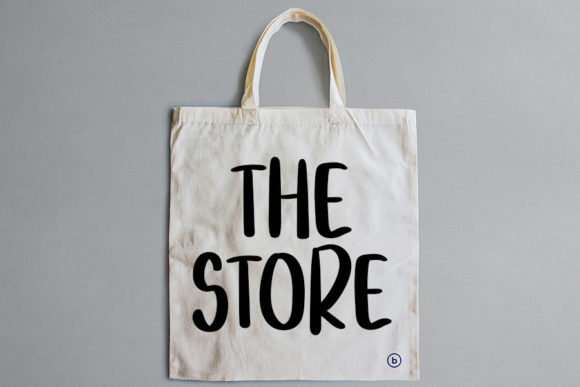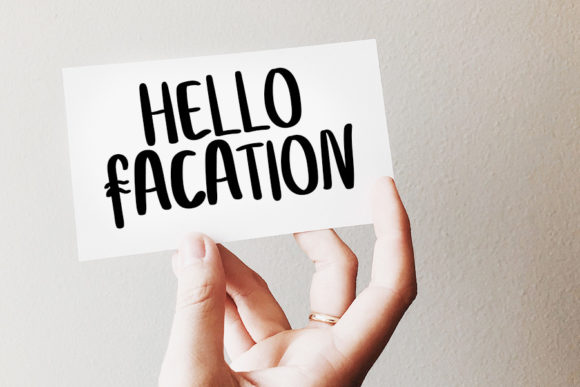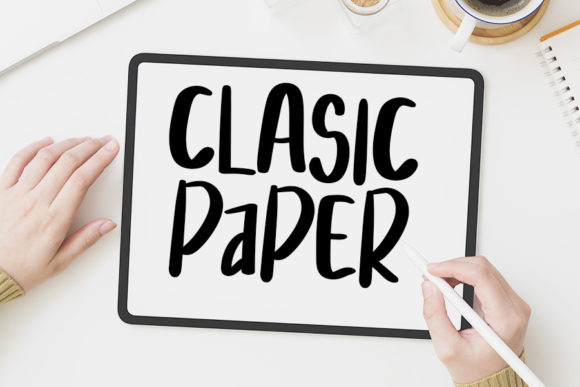
Introducing Blue Font: Elevate Your Designs with a Simple yet Stunning Typeface
Are you tired of using the same old fonts in your designs? Look no further than Blue Font, a game-changing display font that’s about to take your creations to the next level. With its clean and simple style, Blue Font is the perfect addition to any designer’s toolkit. In this article, we’ll dive into the world of Blue Font, exploring its features, benefits, and endless possibilities.
What is Blue Font?
Blue Font is a modern, all-round display font that’s designed to brighten up your designs. Its flexibility and neat style make it an ideal choice for a wide range of projects, from branding and advertising to packaging and digital media. Whether you’re a seasoned designer or a crafty DIY enthusiast, Blue Font is sure to become your new go-to typeface.
Key Features of Blue Font
- Clean and Simple Style: Blue Font boasts a clean and simple design that’s easy on the eyes. Its uncluttered lines and minimalist aesthetic make it perfect for creating modern, sophisticated designs.
- Flexibility: Blue Font is incredibly versatile, making it suitable for a wide range of applications. Use it for headlines, titles, and captions, or experiment with different sizes and styles to create unique effects.
- Neat and Organized: Blue Font’s neat style ensures that your designs always look polished and professional. Say goodbye to cluttered, messy typography and hello to crisp, clean lines.
Benefits of Using Blue Font
So, why should you choose Blue Font for your next design project? Here are just a few benefits of using this amazing font:
- Stand Out from the Crowd: With Blue Font, you can create designs that truly stand out from the crowd. Its unique style and flexibility ensure that your work will be noticed and remembered.
- Easy to Read: Blue Font is incredibly legible, making it perfect for body text and captions. Its clean design ensures that your message will be conveyed clearly and effectively.
- Endless Variations: Blue Font offers endless possibilities for creative experimentation. Try out different colors, sizes, and styles to create unique effects and add some personality to your designs.
Exploring the Endless Variations of Blue Font
One of the best things about Blue Font is its incredible versatility. Here are some ideas to get you started:
- Color Schemes: Experiment with different colors to create unique effects. Try pairing Blue Font with bold, bright colors or soft pastels to add some personality to your designs.
- Font Sizes: Play around with different font sizes to create visual interest. Use larger sizes for headlines and smaller sizes for body text.
- Text Effects: Add some extra flair to your designs with text effects like shadows, outlines, and gradients.
Tips and Tricks for Using Blue Font
Here are some expert tips and tricks for getting the most out of Blue Font:
- Keep it Simple: Don’t be afraid to keep things simple. Blue Font’s clean design is perfect for minimalist designs that let the content shine.
- Experiment and Have Fun: Don’t be afraid to try new things and experiment with different styles. Blue Font is all about creative freedom and self-expression.
- Pair it with Other Fonts: Blue Font pairs perfectly with other fonts. Try combining it with a bold sans-serif or a elegant script font to create a unique and eye-catching design.
| Font Name | Blue Font |
| Author | FL Space |
In conclusion, Blue Font is a game-changing display font that’s perfect for designers and crafters looking to elevate their designs. With its clean and simple style, flexibility, and endless variations, Blue Font is sure to become your new go-to typeface. So why wait? Download Blue Font today and start creating stunning designs that will leave a lasting impression.